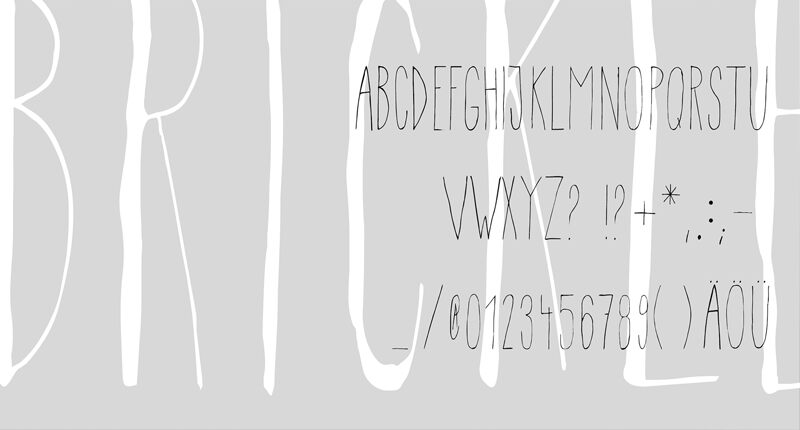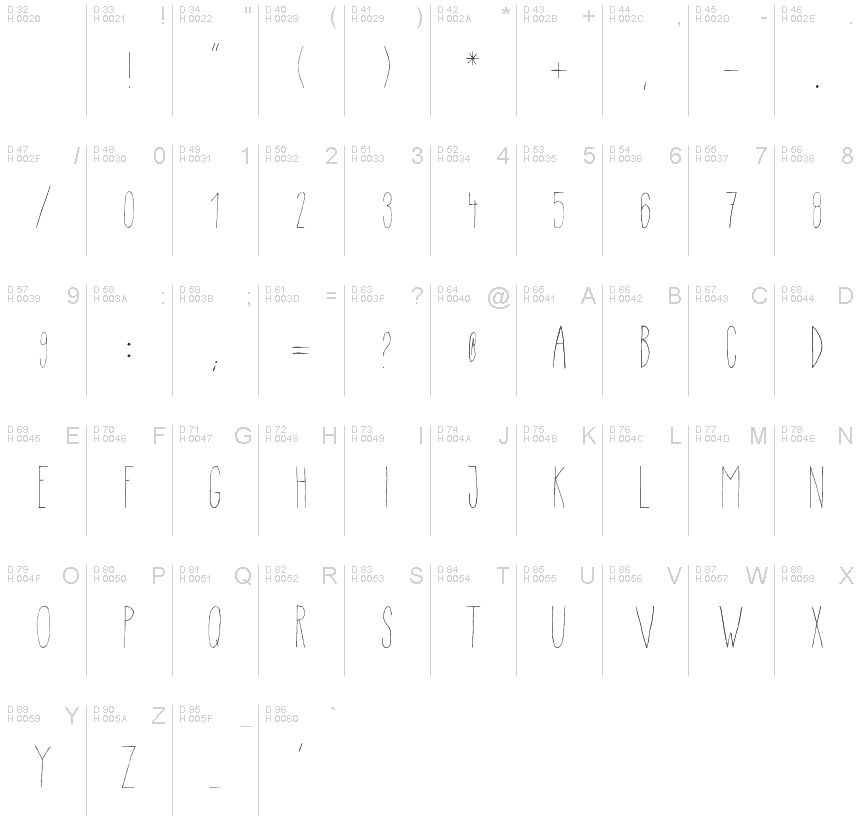
brickle
Brickle font is a free handwritten typeface with tall, spidery letters that look like they’ve been sketched in pencil on a scrap of paper. The lines are thin and a little wobbly, giving each word a loose, nervous energy that still reads clearly. It brings a playful, indie-bookstore vibe—clean enough for real projects, but quirky enough to feel truly hand-drawn.
Using Brickle, this free font shines on poster titles, zines, greeting cards, children’s book covers, packaging for handmade goods, Instagram quote graphics, and menu headings. The narrow forms make it easy to fit long words into tight spaces without feeling cramped. Pair Brickle with a simple rounded sans serif for body text, and give it generous line spacing so its lanky letters can breathe.